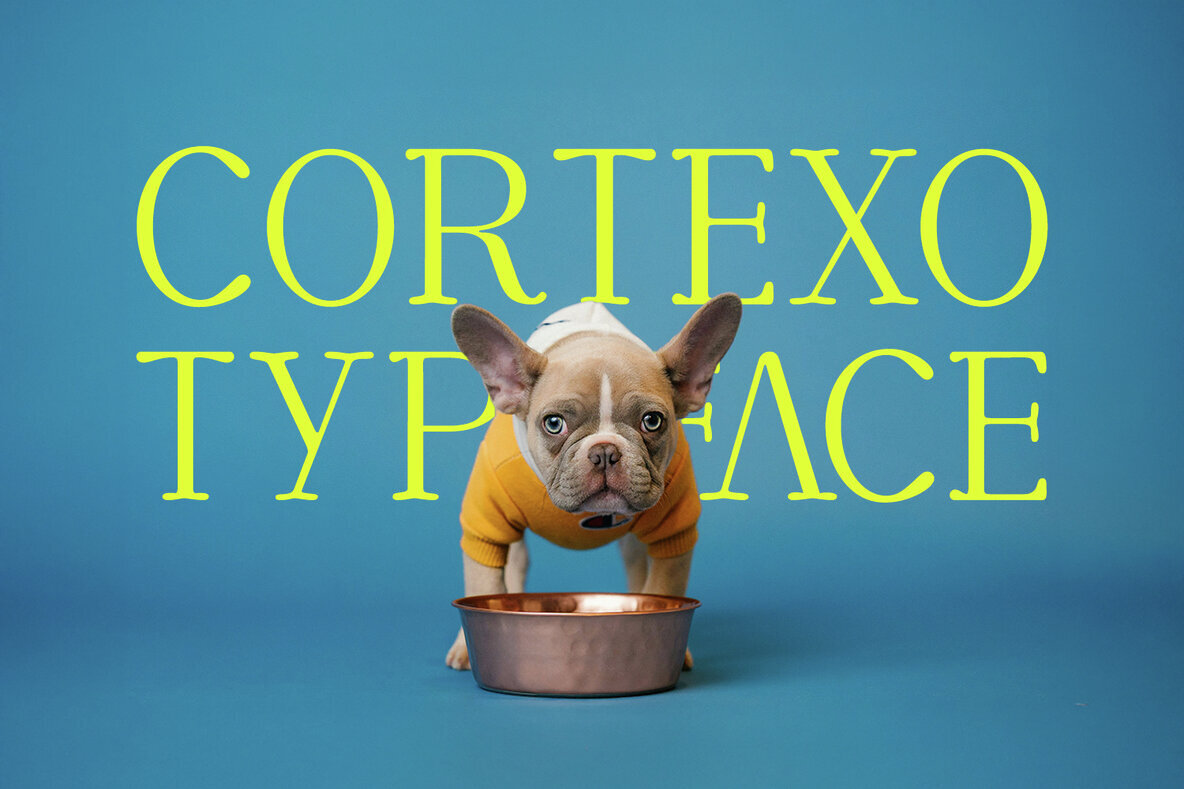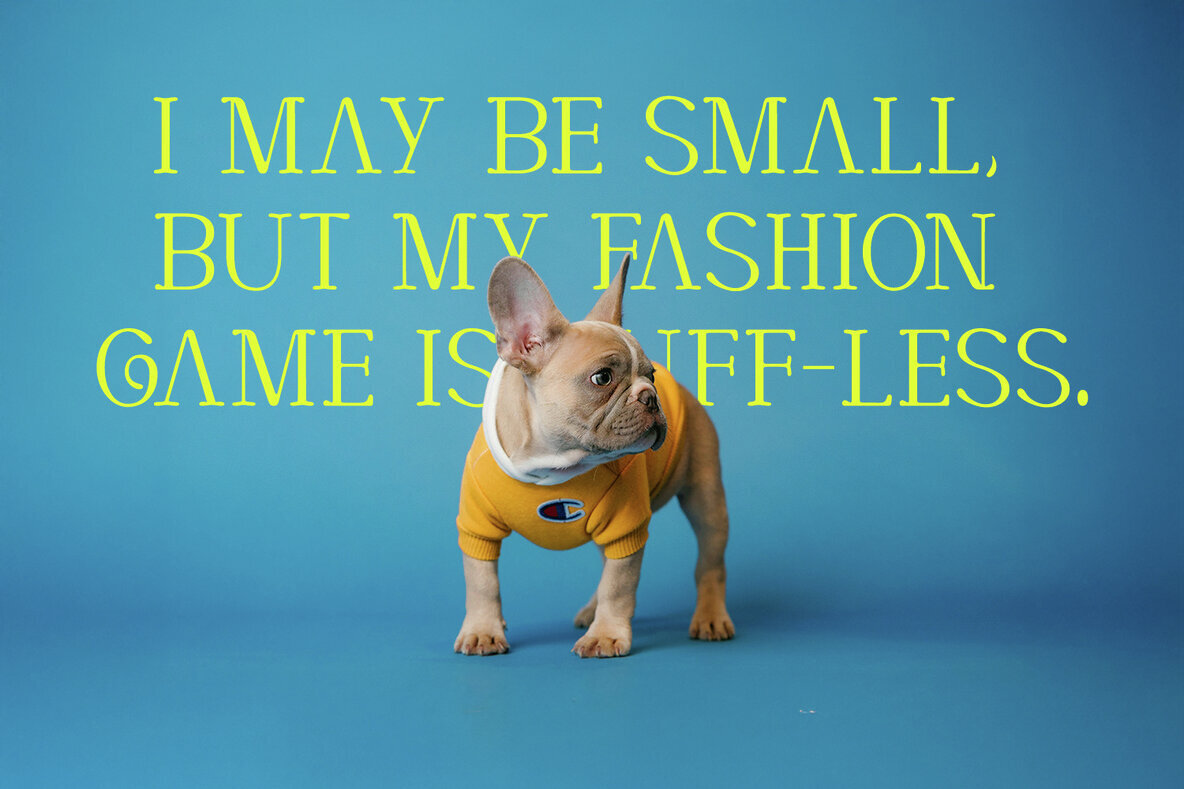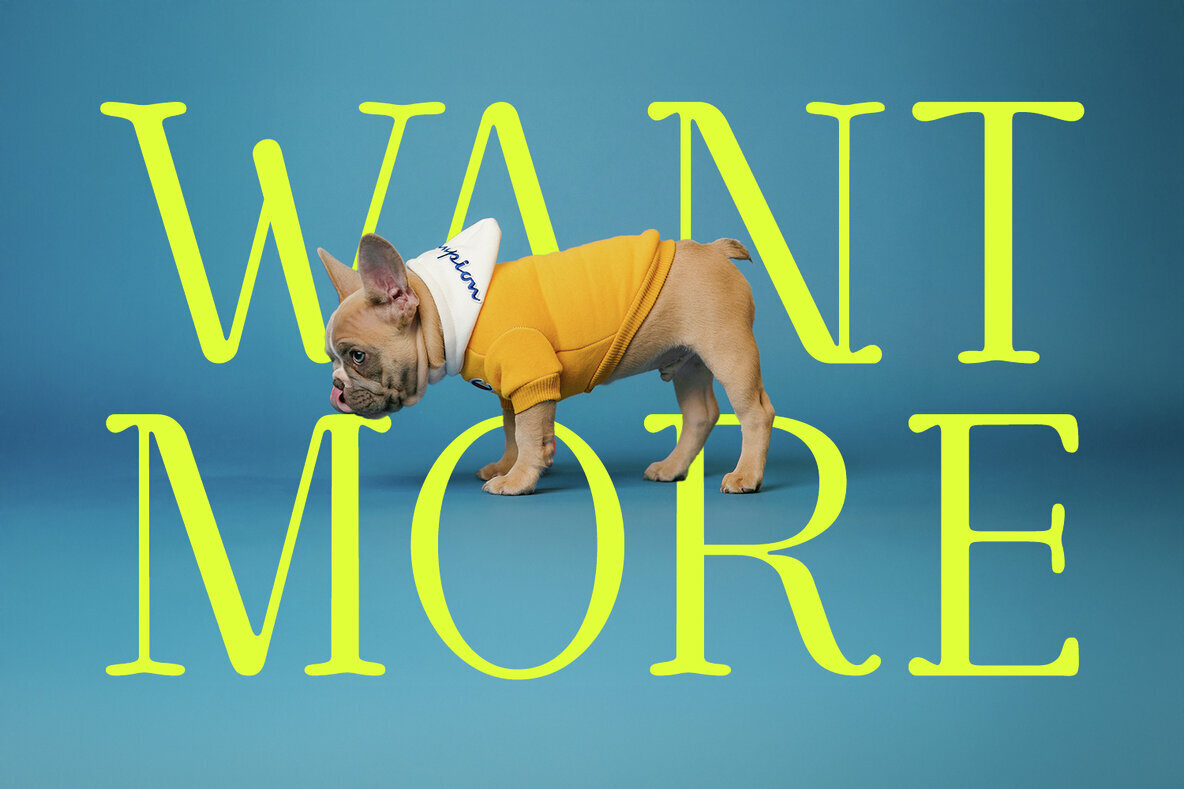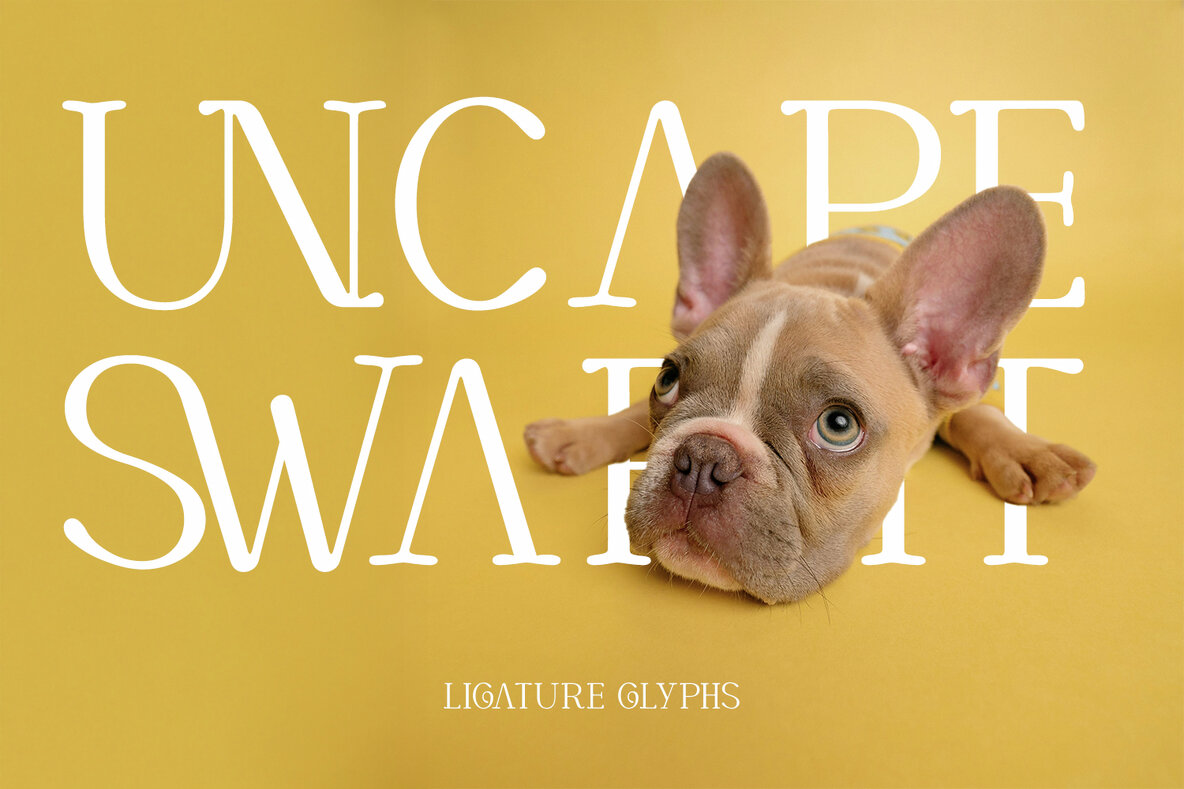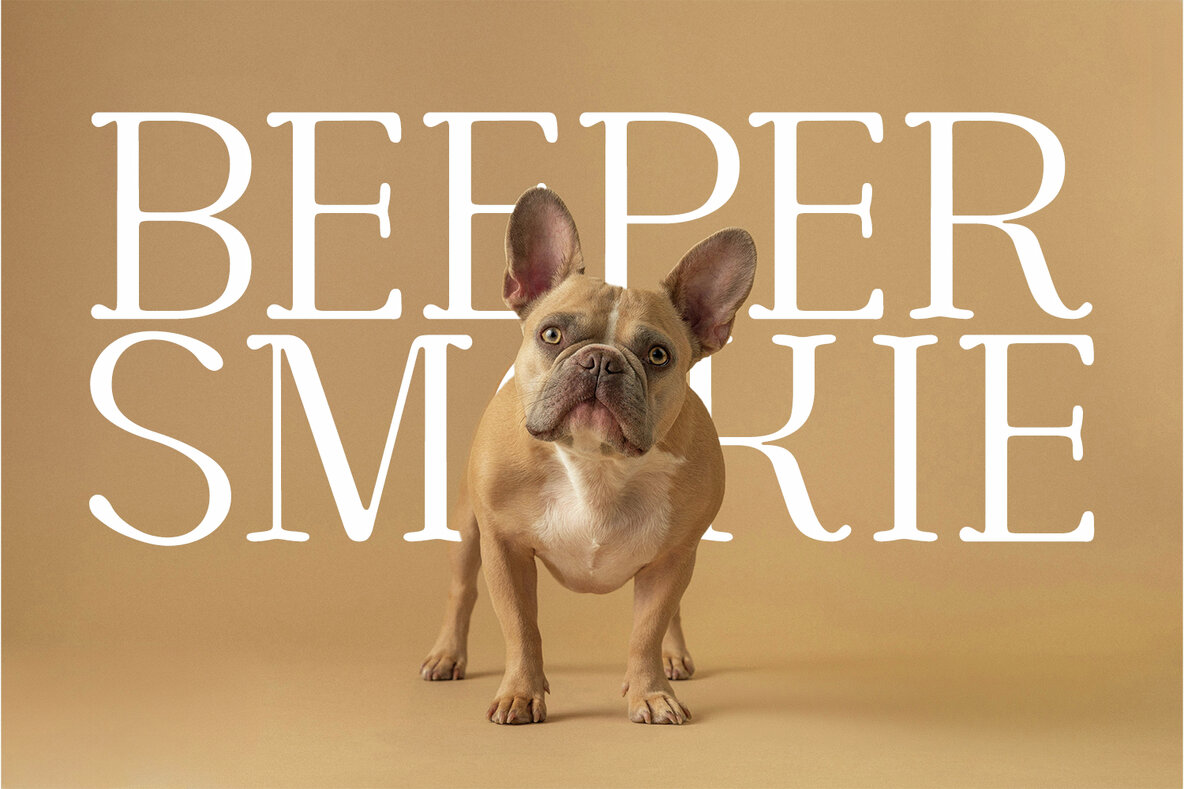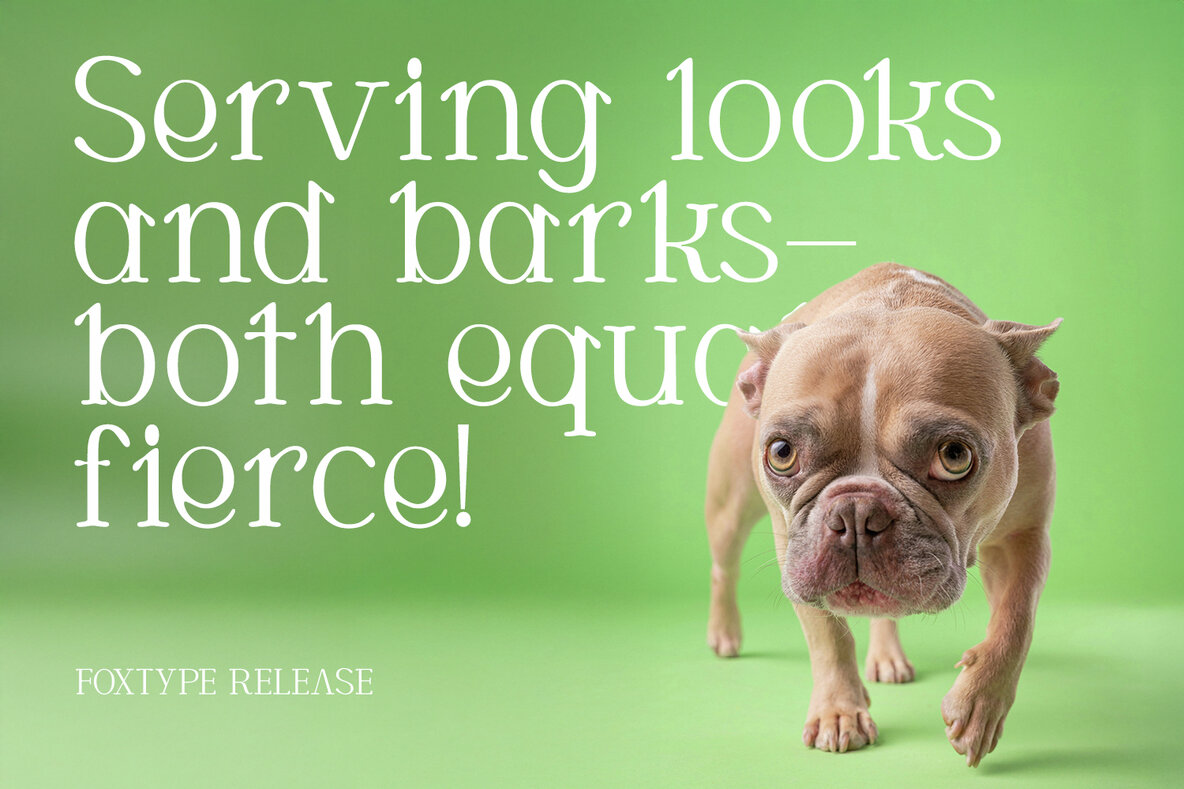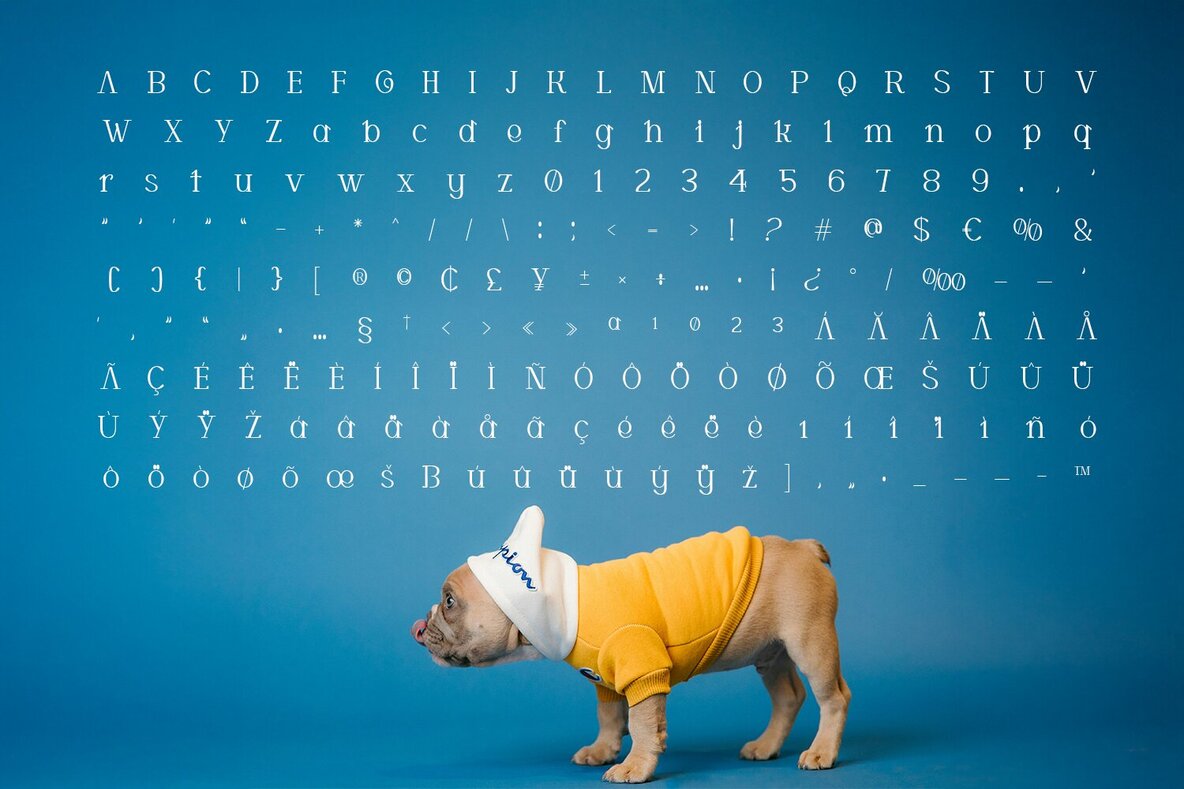
CORTEXO Font
Cortexo Regular
CORTEXO is a sophisticated thin serif font, crafted with precision and elegance, ideal for infusing your creative projects with modern luxury. This font is perfect for posters, magazine covers, high-end branding, and editorial designs, offering a refined aesthetic with its sharp serifs and clean lines. Whether you're working on fashion spreads, logo design, or luxury branding, CORTEXO provides outstanding clarity and style, making it ideal for both print and digital use. Bring class and precision to your next design with CORTEXO – where typography meets craftsmanship.CORTEXO: Exquisite Thin Serif Font
Standout Features